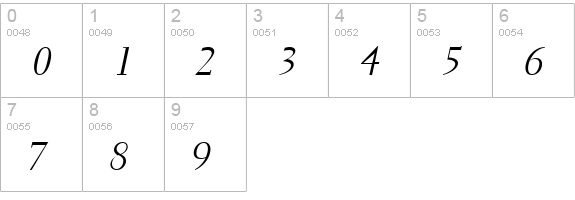
Transit 2 Italic Font Details
Transit 2 Italic is a distinctive, italic variant in the Transit typeface family \xE2\x80\x94 well suited to design and typography projects.
Transit 2 Italic font is a sleek and modern typeface that exudes elegance and sophistication. Its italicized design adds a touch of flair and grace to any design project, making it perfect for both professional and creative purposes. This font offers a unique blend of contemporary and classic elements, resulting in a versatile typeface that can be used for a wide range of applications. Whether you're designing a logo, creating a poster, or crafting a website, Transit 2 Italic font will effortlessly elevate your designs to the next level. One of the best things about Transit 2 Italic font is that it is freely available to download at FontsMarket.com. This means that you can easily access this stunning font without having to spend a dime. With just a few clicks, you can enhance your design projects with the elegance and sophistication that Transit 2 Italic font brings. The clean and crisp lines of this font make it highly legible, ensuring that your message is conveyed with clarity and impact. Its slightly slanted italicized style adds a touch of dynamism and movement, making it visually engaging and captivating to the eye. Transit 2 Italic font is compatible with various design software and can be used on both Mac and PC platforms. Its wide range of glyphs and characters allow for multilingual support, making it suitable for global design projects. Whether you're a professional designer or just starting out, Transit 2 Italic font is a valuable addition to your font library. Its versatility, elegance, and the fact that it is freely available for download at FontsMarket.com make it a must-have for any design enthusiast. So why wait? Download Transit 2 Italic font today and embark on a journey of creative possibilities.